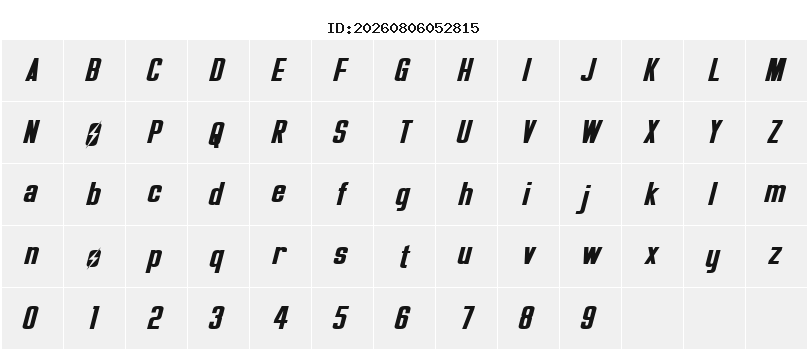
Overseer Preview
• Font Name: Overseer
• Full Font Name: Overseer Italic
• Designer: Neale Davidson
• Manufacturer: Neale Davidson
About Overseer.ttf
Overseer.ttf is a modern, elegant sans-serif font designed for ultimate readability and visual harmony. Perfect for branding, headlines, web design, and print materials.